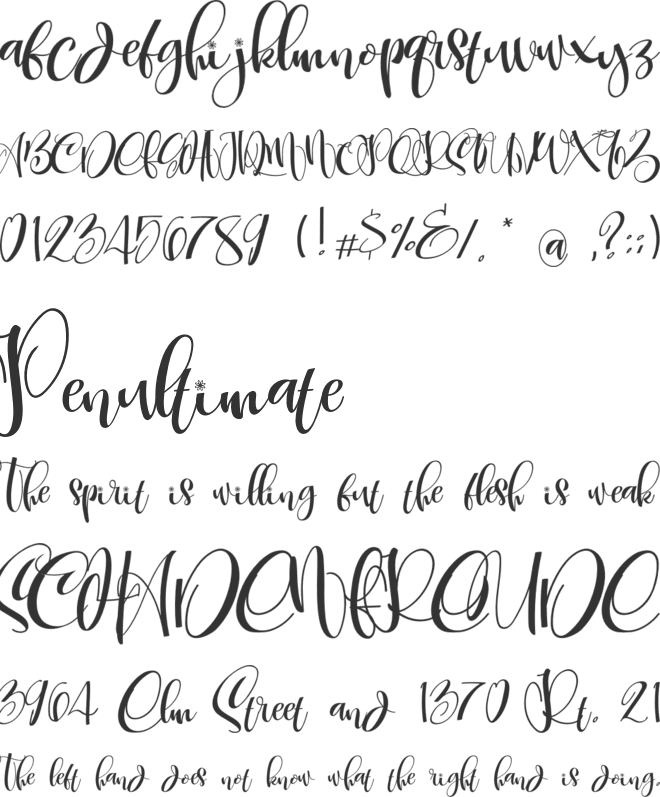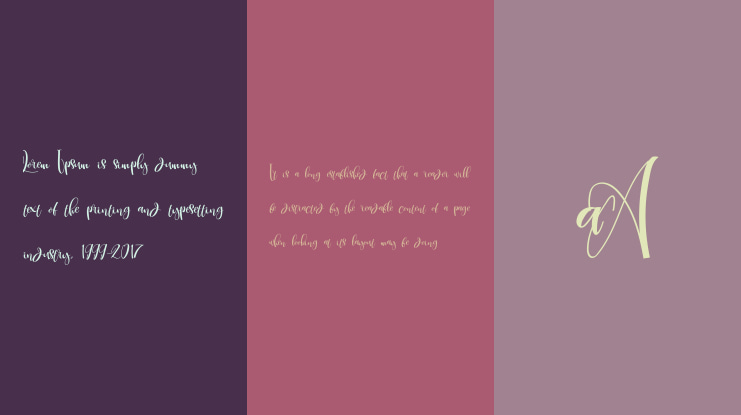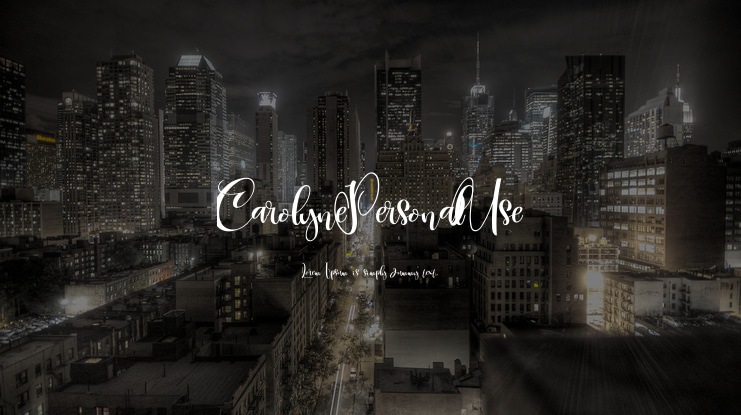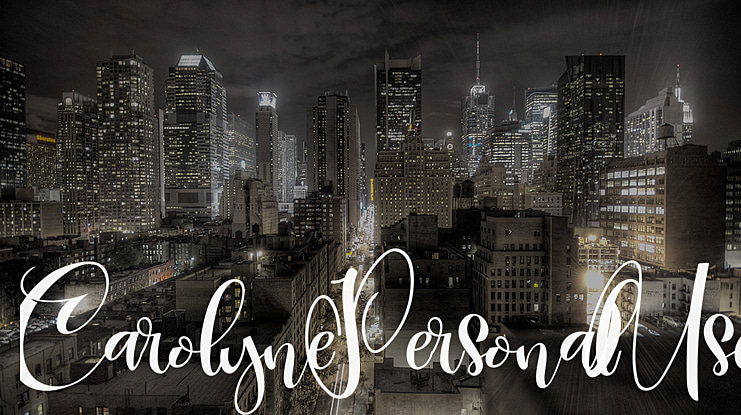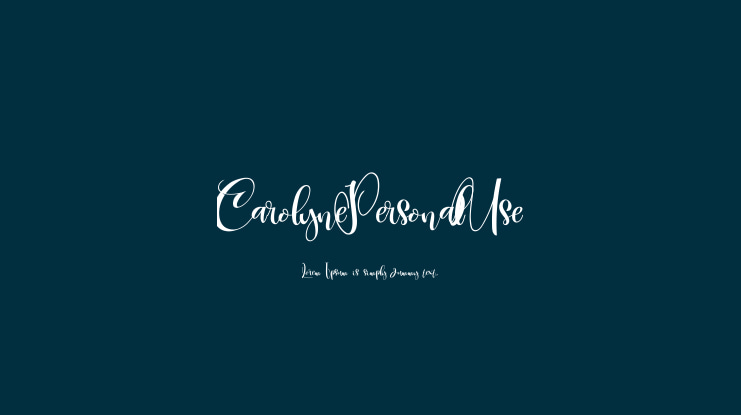
CarolynePersonalUse Font
Introducing: Carolyne -Beauty Calligraphy Script-!
A script font with a smooth handwritten style with 182 glyphs. Carolyne is perfect for branding projects, Feminine taste designs, Bridal & Wedding designs, product packaging, use in name card, invitation cards, etc. Beauty as a stylish text overlay to any background image or anything requiring a sprinkle of elegance.